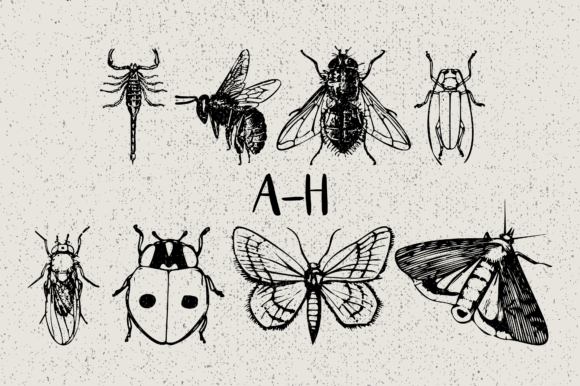
Insects Font
Insects is a unique and highly detailed dingbats font, designed to help you generate 62 glyphs for your project, by typing capital letters, small letters and numbers.